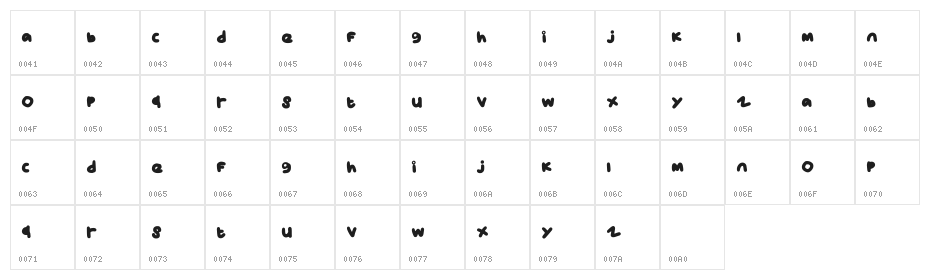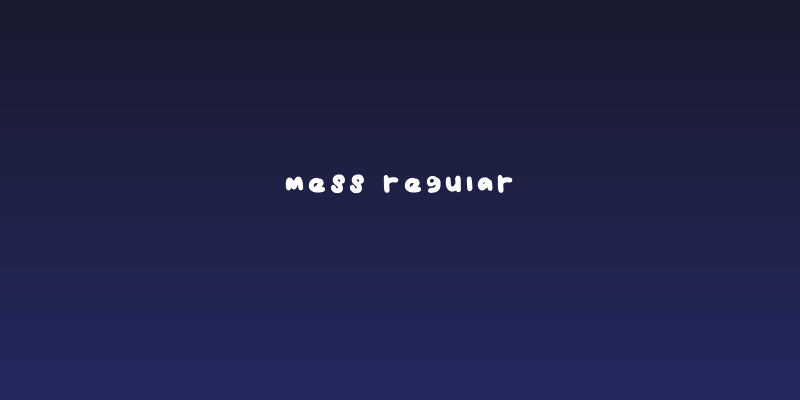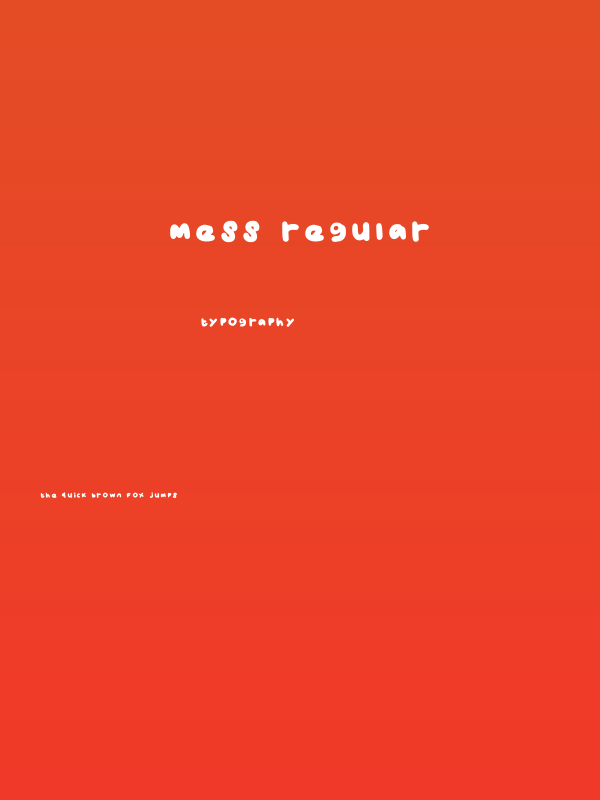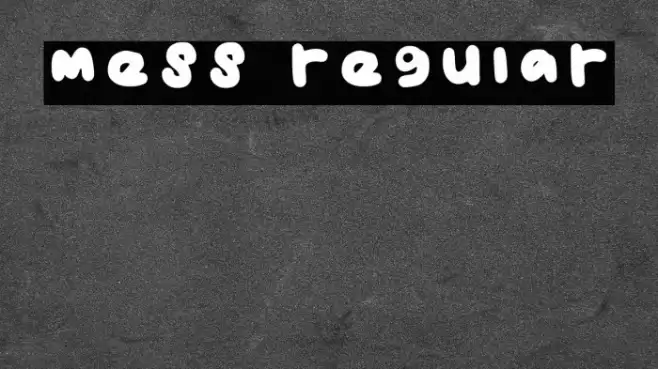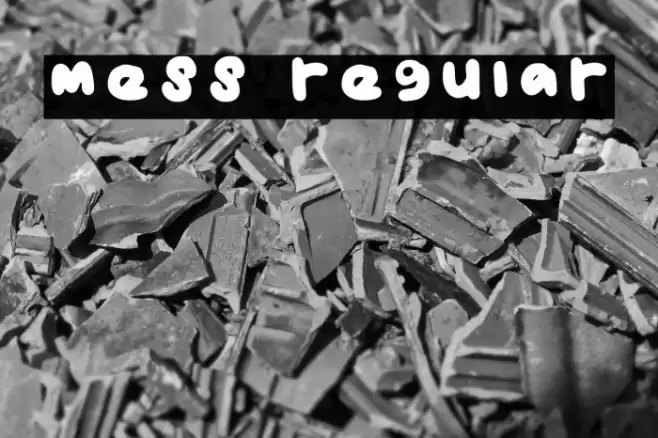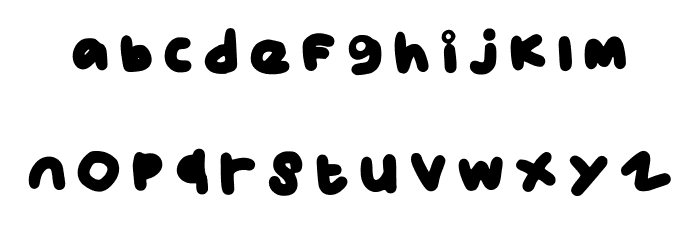
Mess Regular Font
Mess Regular Description
This playful and bold font features rounded, bubbly characters that convey a sense of fun and whimsy. The letters are evenly spaced with a consistent thickness, giving it a cohesive and uniform appearance. Its unique style makes it stand out, with each character maintaining a playful yet legible form. The font's design is ideal for projects that require a touch of creativity and lightheartedness, making it perfect for children's materials, playful branding, or any project that aims to evoke joy and creativity.